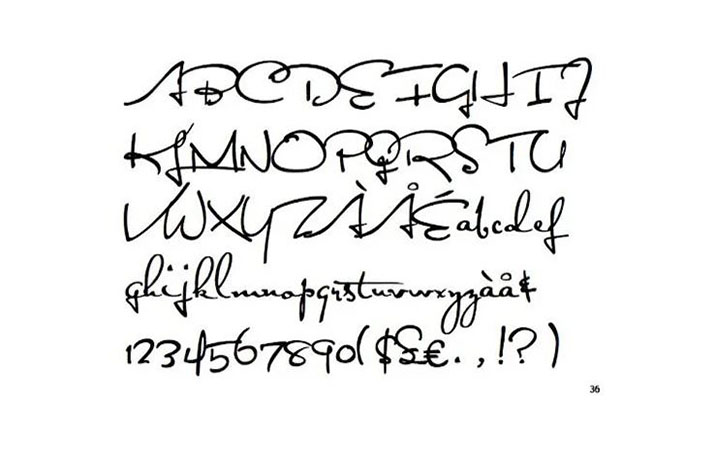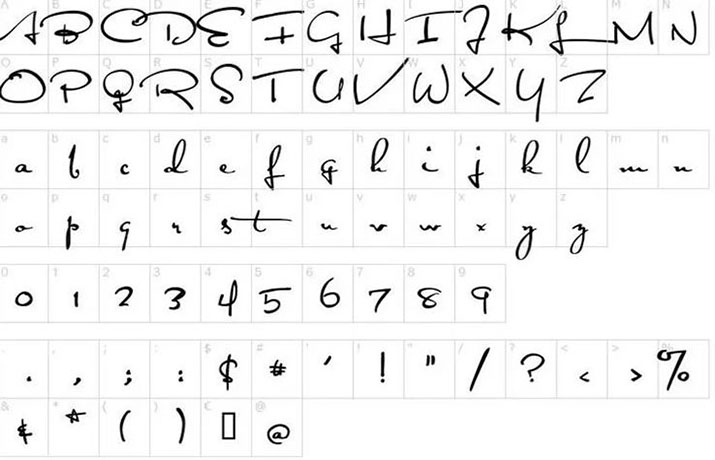
Satisfaction Font is a lovely casual handwritten typeface that has cursive strokes and a playful look. It was designed and published by Andrew Leman.
All textures are handmade along with cursive strokes. And you will observe one more cool thing is natural strokes and slight imperfections. It increases its beauty and natural flow throughout the typeface.
Due to its stylish and vintage designs, you can use it for various projects including invitations, greeting cards, signatures, birthday cards, social media graphics, and more.
Satisfaction typeface comes in a single regular style along with True Type features. This font includes 184 glyphs, numbers, punctuation marks, and 110 binary stored kerning pairs. Moreover, it also supports 61 global languages.”
Satisfaction Font (Details)
Font Name:Satisfaction Font Family
Style:Script, Handwritten, Casual
Font Designer:Andrew Leman
• Due to its cursive appearance, you can use it for a variety of stylish purposes, such as shopping bags, brand logos, product packaging, banners, signs, banners, invitations, birthday cards, headers, letterhead, signage, labels, news, posters, and t-shirt printing. You can also use it for special cards, t-shirts, magazines, books, greeting/wedding cards, signs, banners, and banners.
What is Satisfaction Font?
Satisfaction Font is a lovely casual handwritten typeface that has cursive strokes and a playful look. It was designed and published by Andrew Leman.